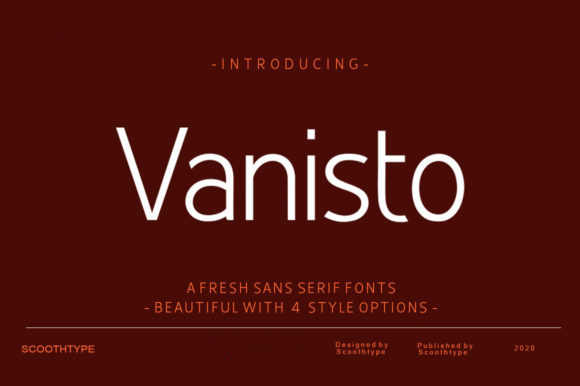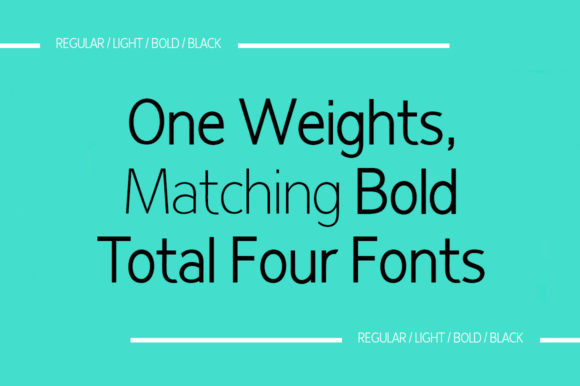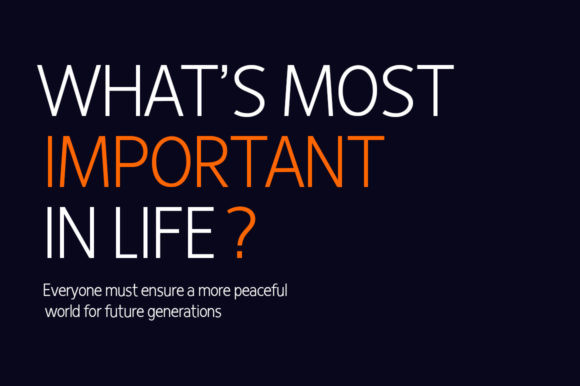
Vanisto Font
Vanisto FontVanisto is a classy sans serif font. It features a luxurious feel that will take your designs to the next level! It comes in 4 styles: regular, light, bold and black. Use Vanisto to achieve an exquisite, yet subtle look and maximum versatility.
This font is PUA encoded which means you can access all of the special characters with ease! It also features a wealth of special features including alternate glyphs and ligatures.